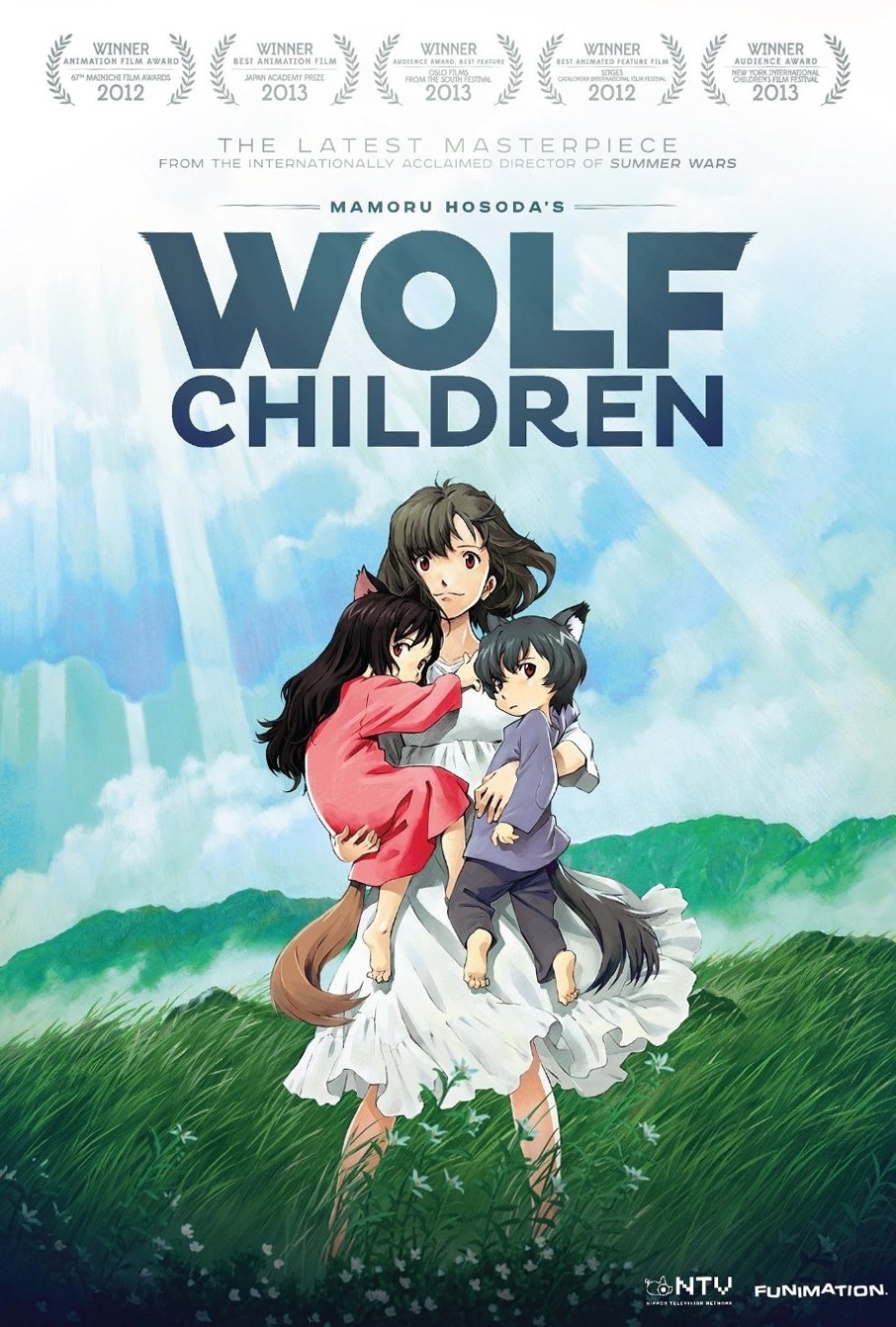
Wolf Children [Movie] Font
AnimationWolf Children is a 2012 animated Japanese film about a young mother who raises her two children, who are half-wolf, after her husband's death. The family struggles to keep their true identities hidden while also trying to find their place in the world.
The Wolf Children title in the international poster features a sans serif named Pluto, with “WOLF” written in Pluto Black and “CHILDREN” set in Pluto Bold. The Pluto font family was created by Hannes von Döhren and comes with 16 weights. You can view more details about the font family here.